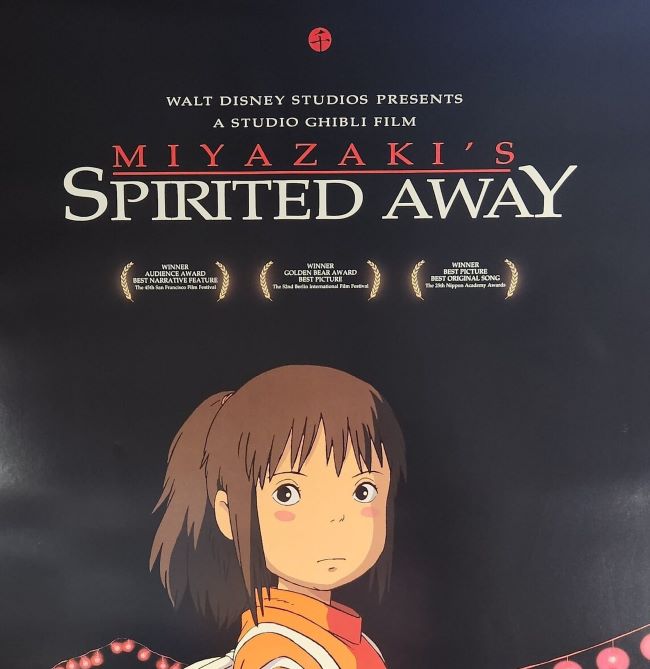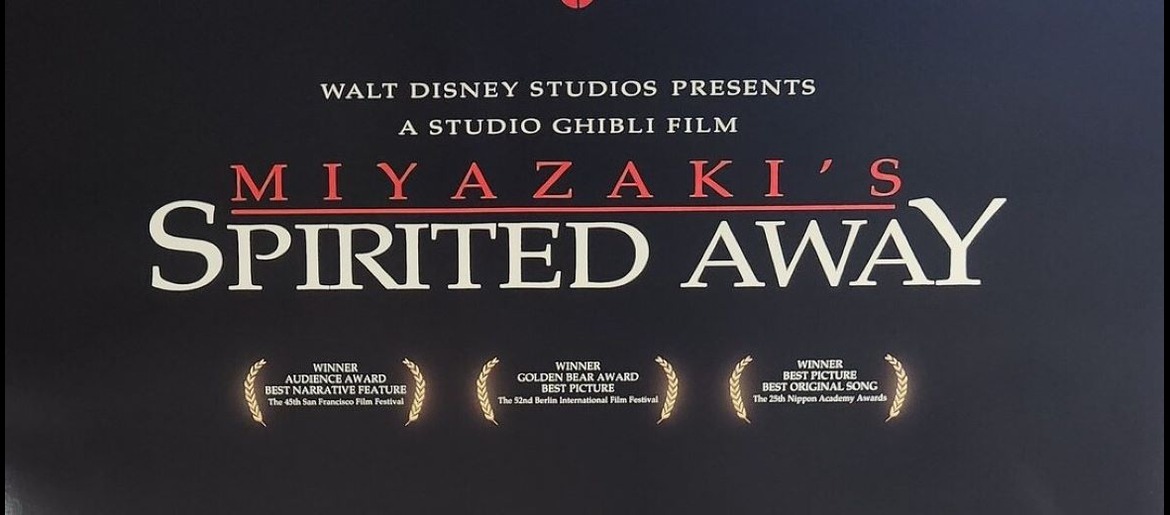
Spirited Away Font brings the enchanting atmosphere of Studio Ghibli’s masterpiece into typography form. This typeface mirrors the film’s dreamlike quality, offering designers a gateway to creating mystical, otherworldly visuals that resonate with animation lovers globally.
The film’s title lettering is reminiscent of Palatino, a classic serif typeface designed by Hermann Zapf in 1950. Known for its graceful curves and timeless appeal, Palatino has been widely used in various applications, including movie posters and book covers. You can also check our free fonts.
The Spirited Away Font features delicate curves and artistic flourishes perfect for fantasy projects, children’s books, anime-inspired designs, or any creative work requiring gentle whimsy. Its decorative nature evokes nostalgia while maintaining professional readability.
Whether crafting tribute posters or fantasy branding, the Spirited Away Font transforms ordinary text into magical experiences, proving typography’s power in storytelling.